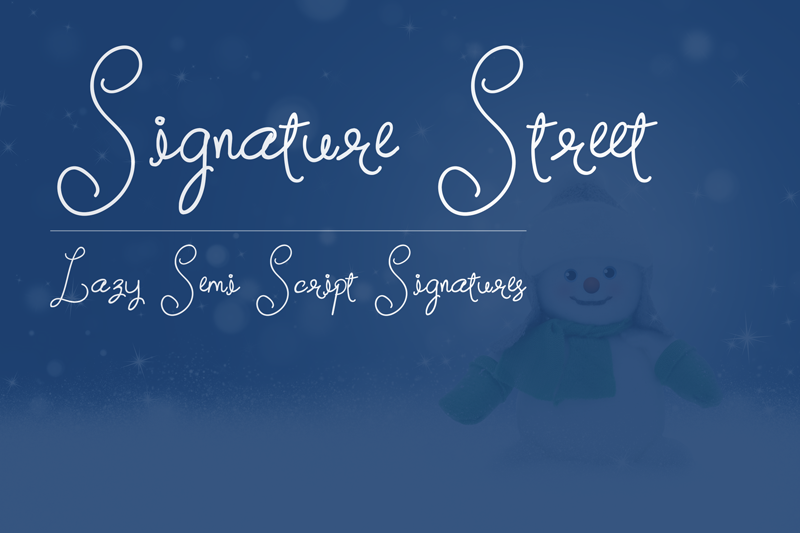
Font name: | Signature Street |
Author: | Dasagani Ramesh |
Signature Street is a new Semi Scrip Handwritten Lazy Street Signature Font, It will Perfectly Fits for the Advertisement, Social Media Posts, Personal Notes and Handwriting projects. Free For Personal Use Only. For Commercial Use Please Contact me from here mail : master002@live.in Consider helping us out via donations to make more fonts : https://www.paypal.me/musebundle visit my website : http://musemaster.net/ |